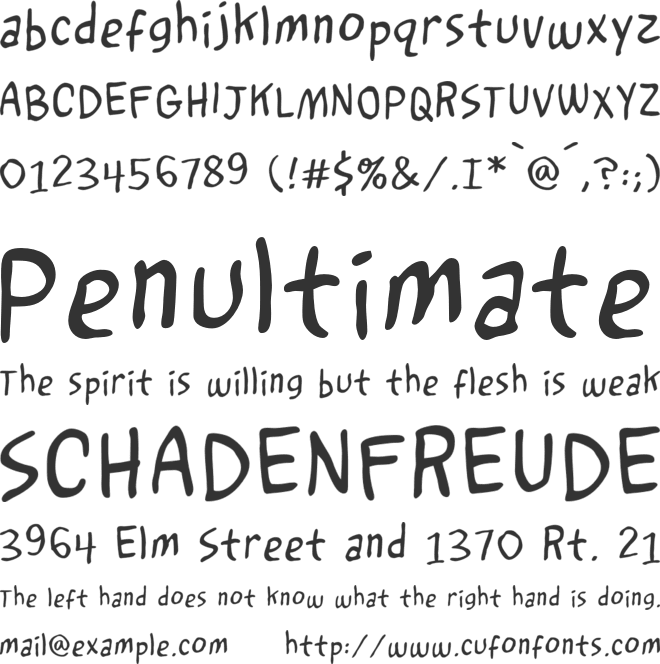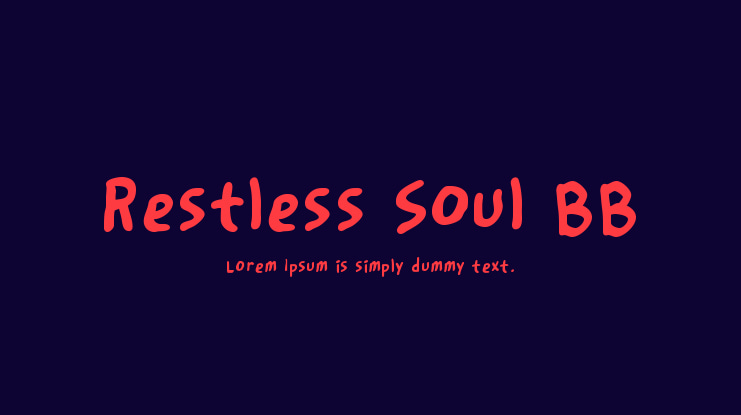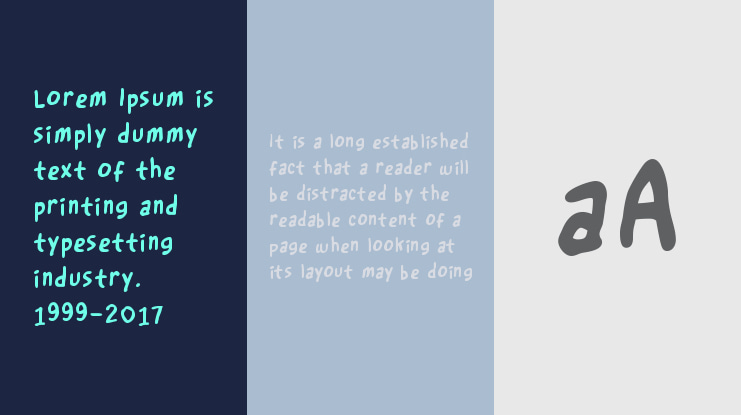
Restless Soul BB Font Family
Nate Piekos. Blambot.com
This phantasmic free font comes with Regular, Italic, Bold, and Bold Italic, and includes OT Autoligatures to differentiate double letters like RR, gg, SS, etc.